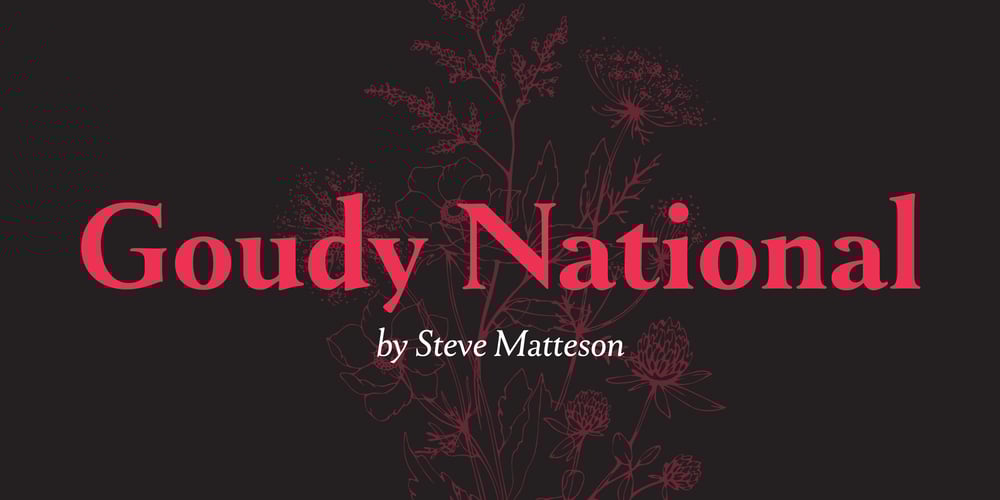
Goudy National Font Family was designed by Steve Matteson, Frederic W. Goudy and published by Matteson Typographics. Goudy National contains 6 styles and family package options. Frederic Goudy designed National Old Style Roman in 1916. It is loosely based on a logo he lettered for the National Biscuit Company in 1901. Steve Matteson expanded on Goudy’s original by designing a bold, semibold and matching italics. While much of Goudy’s work is strongly influenced by Venetian types of the 15th and 16th centuries – this design has a truly American quality about it. The design is useful for text or headlines that captures a sense of Americana.